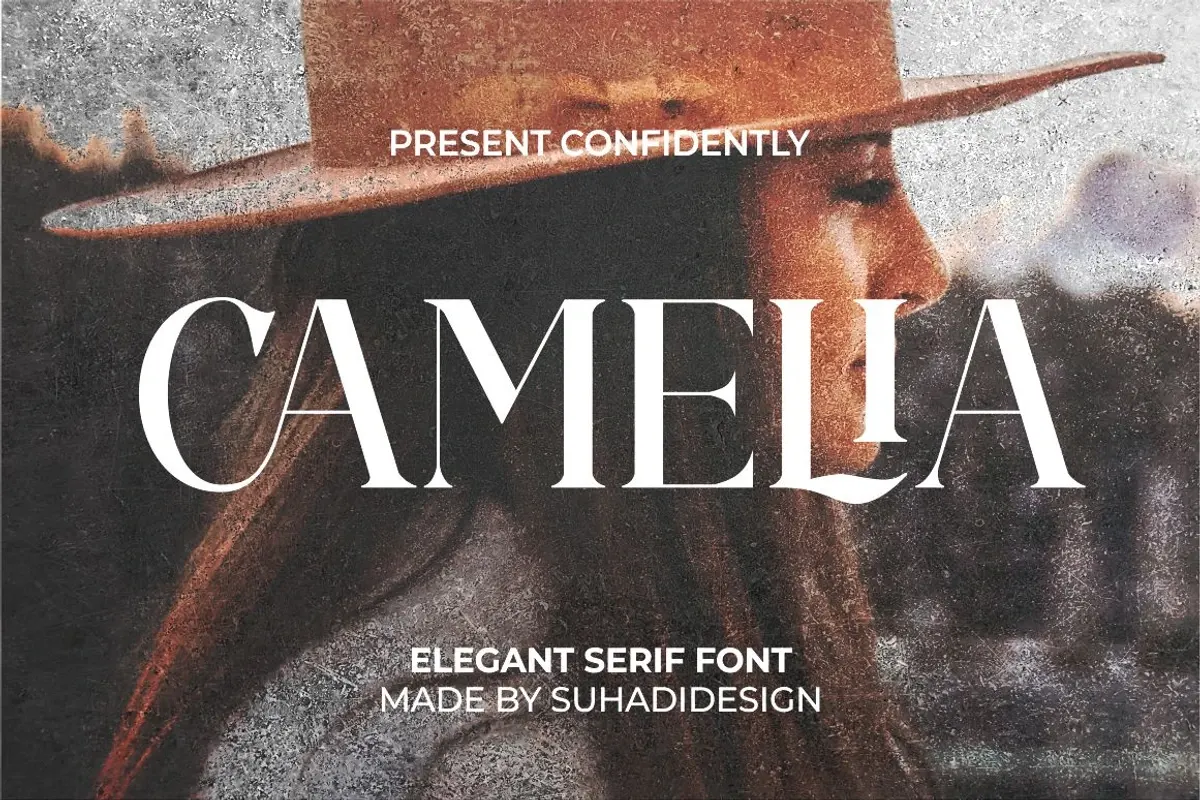
Camelia Elegant Serif Font Free Download is a sophisticated and timeless serif typeface that exudes elegance and class. Designed for high-end branding, wedding invitations, editorial layouts, and luxury packaging, this font adds a refined touch to any visual presentation.
Crafted with stylish curves and balanced contrast, Camelia Elegant Serif Font Free Download delivers a polished and graceful aesthetic that elevates your designs. Its classic charm paired with modern details makes it ideal for creatives aiming for a luxurious and professional look. Whether you're building a fashion brand or designing upscale marketing materials, Camelia is a font you'll want to try before committing to a full license. Explore its charm and versatility today.